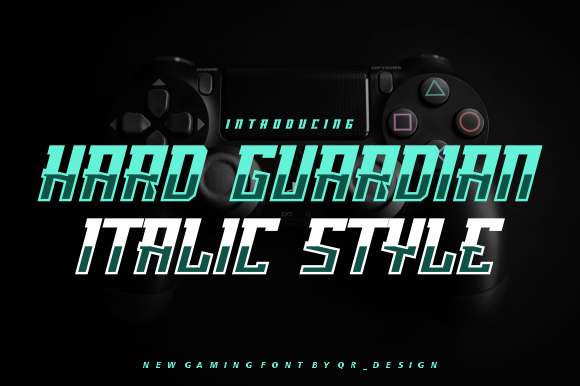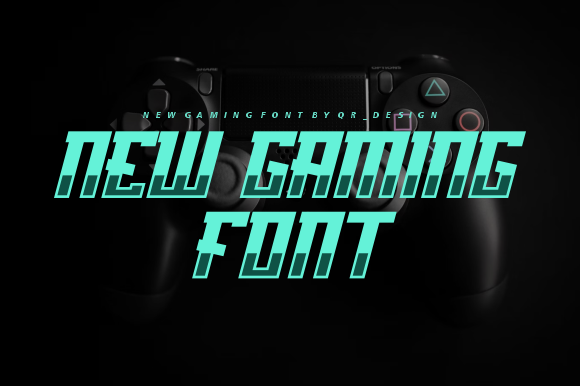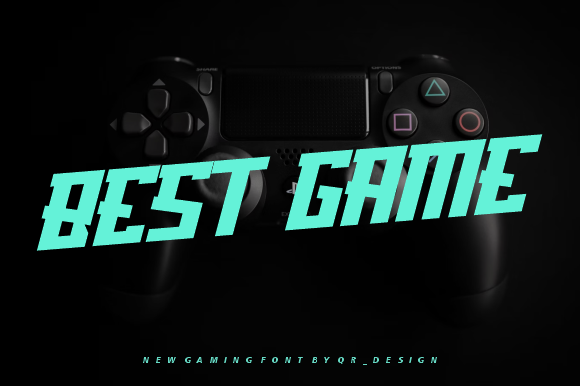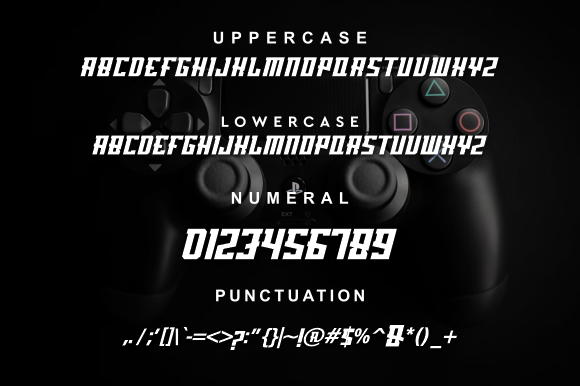
Hard Guardian Font
About the Hard Guardian Font
Add a touch of class to your work with the Hard Guardian Font, a truly exceptional typeface. Hard Guardian Italic Style – Modern Font is a bold and authentic display font. The font is suitable for any branding project like logo, t-shirt printing, Game, sport, and many more. outstanding in a wide range of contexts.
Hard Guardian excels as a display font for headlines, posters, and branding applications where a strong, assertive presence is desired. Its bold forms are ideal for short impactful statements and logos for brands projecting power and authority. Avoid using it for body text or long-form content; its weight and condensed nature make it unsuitable for extended readability.
The font’s core personality is bold and confident, bordering on rebellious. This makes it perfect for projects related to sports, gaming, action-oriented brands, or anything requiring a strong visual impact. Consider pairing it with a clean sans-serif like Open Sans for readability in supporting text, or a more geometric sans-serif like Futura for a modern, high-contrast look.
For a slightly softer contrast, a neutral serif like Garamond could provide a sophisticated counterpoint, balancing the boldness of Hard Guardian while retaining a sense of luxury or refinement. Avoid pairing it with overly decorative or script fonts, which would clash with its strong, straightforward character.
Hard Guardian Font Usage Examples
Hard Guardian Font Example